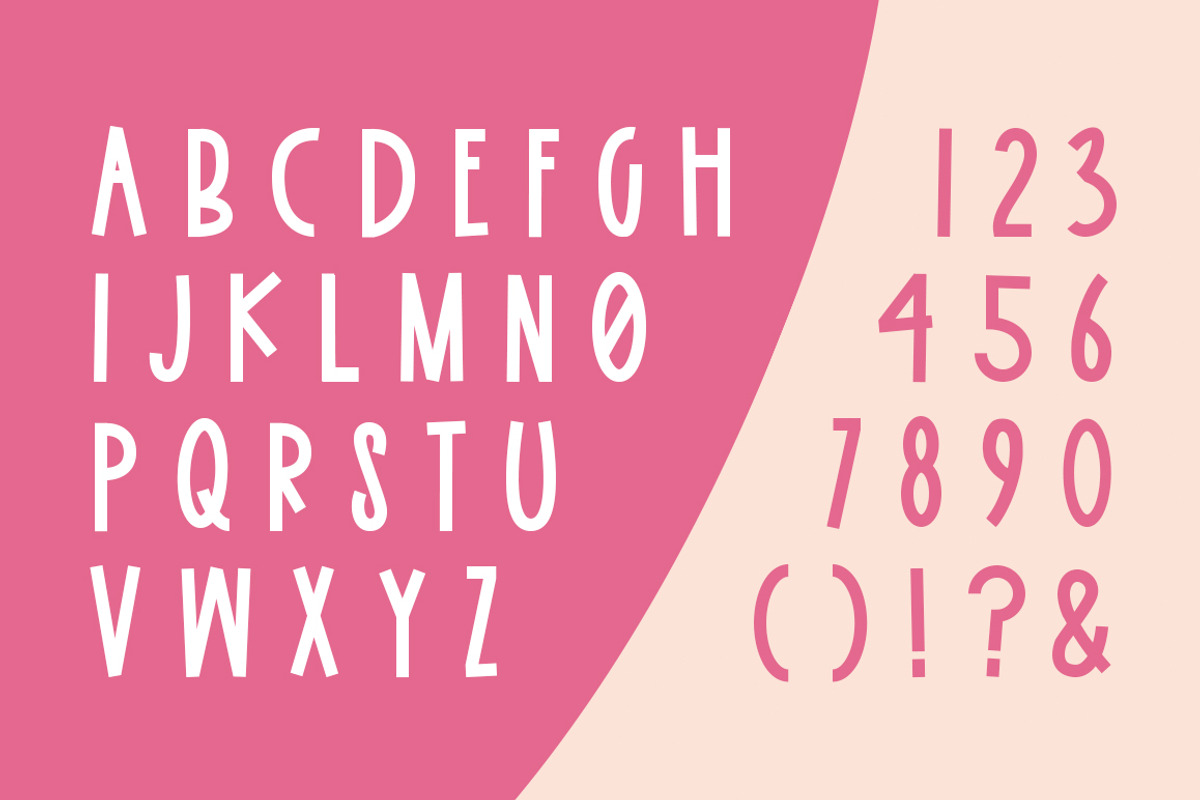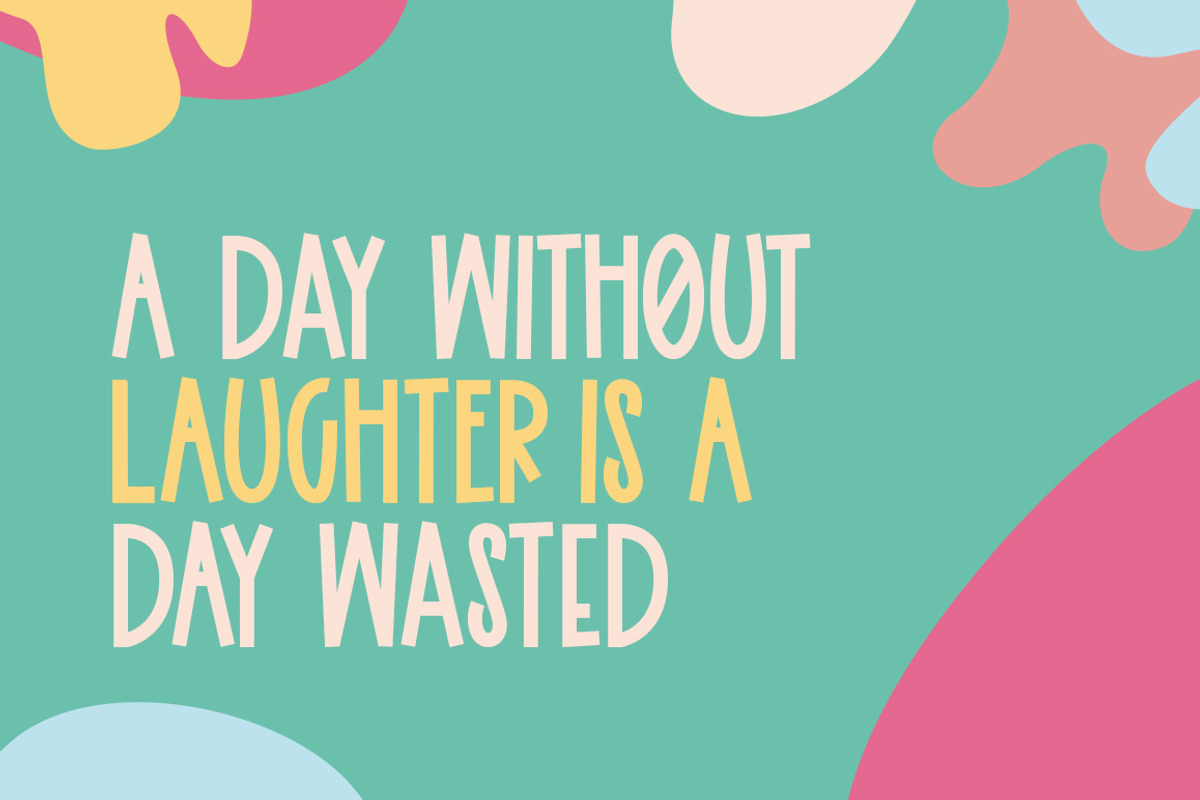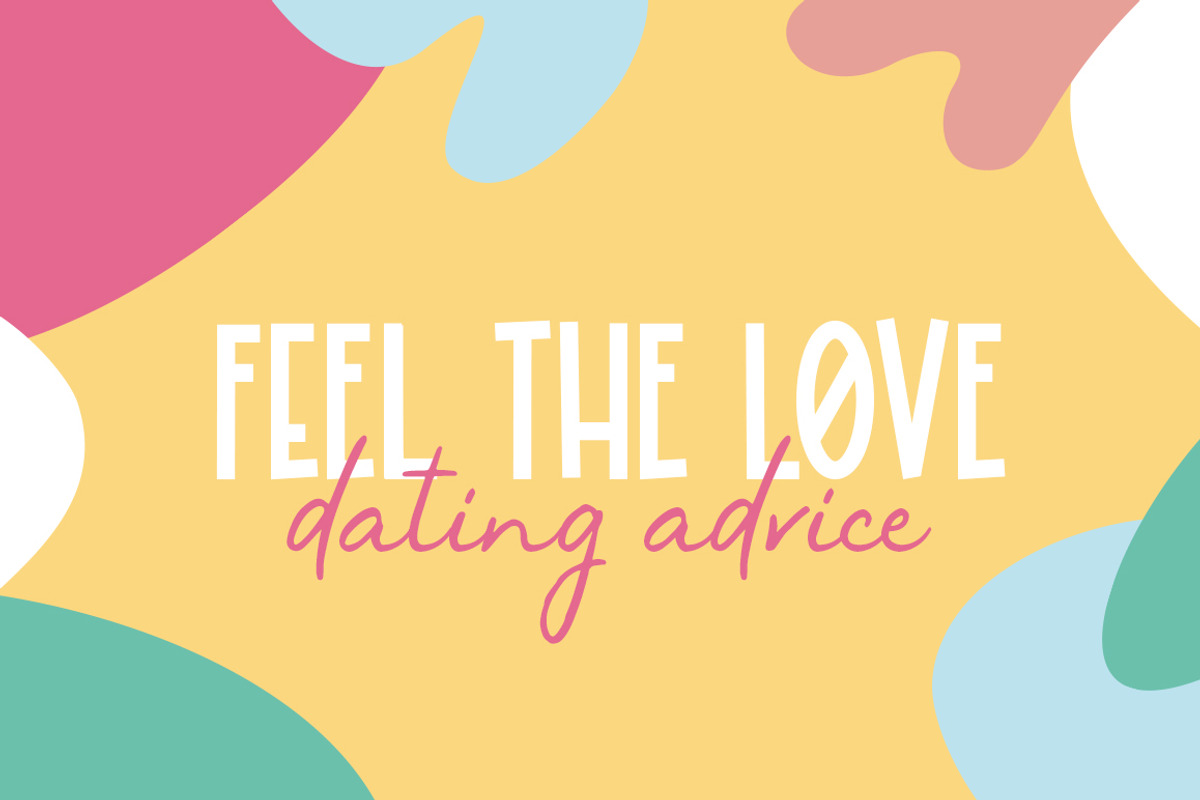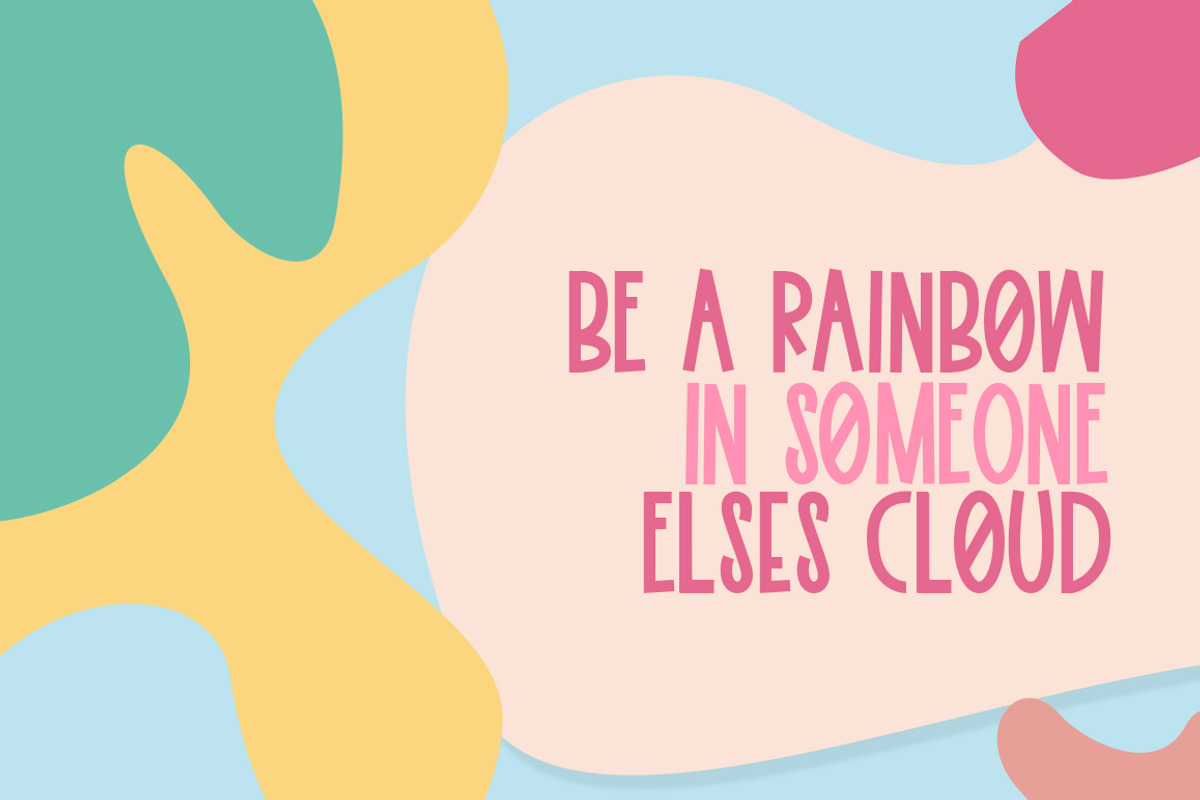
Yesterday Font
Yesterday is here today! Download it now and enjoy its cute and fun characters that are both modern and cool at the same time. Super easy to pair with scripts and other fonts. Enjoy!
Why Yesterday Font is worth a look
Yesterday Font by Salt & Pepper Designs fits naturally into Branding, posters, packaging, typography.